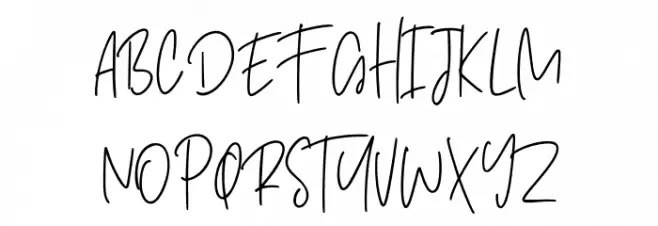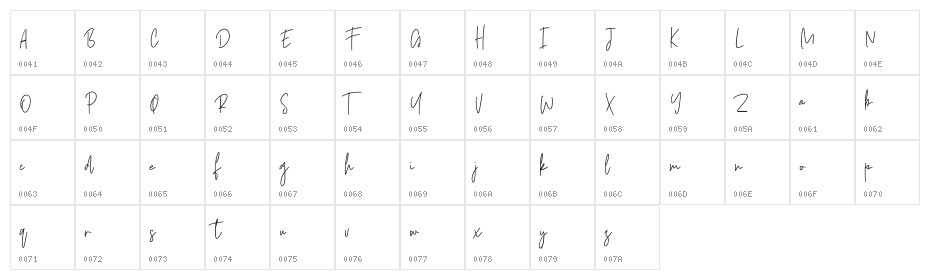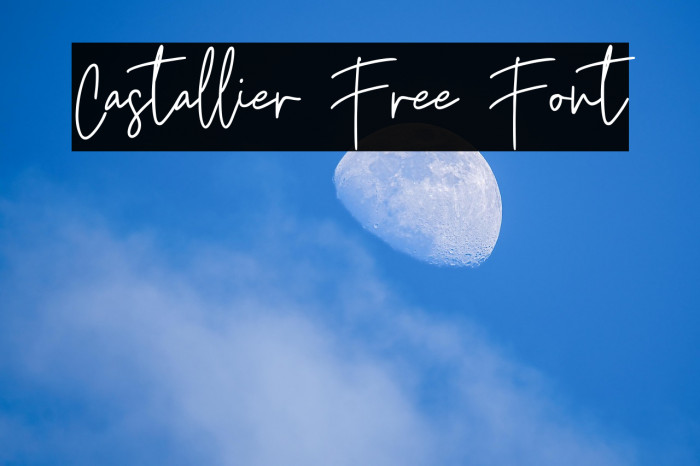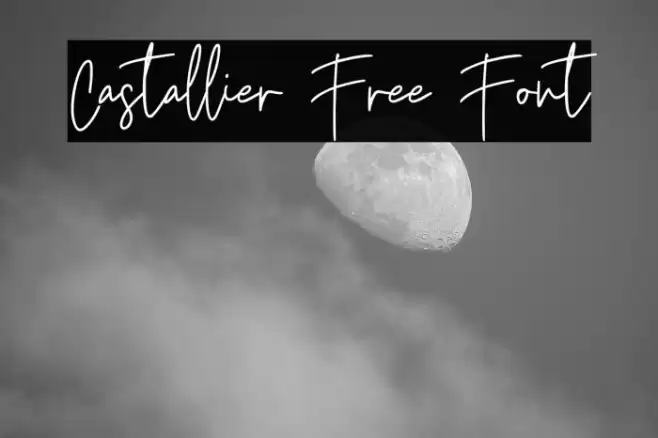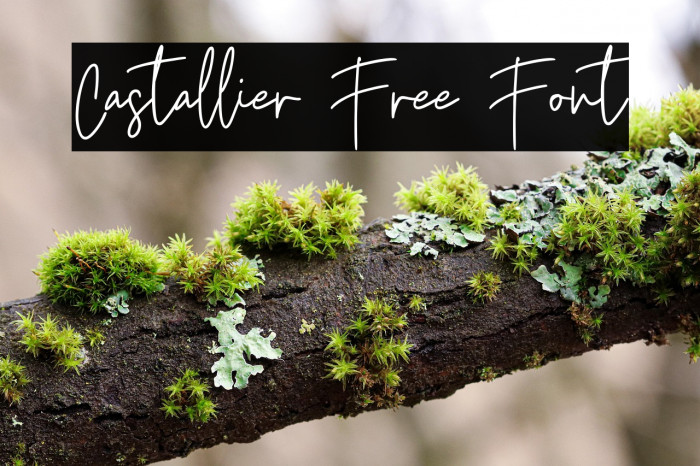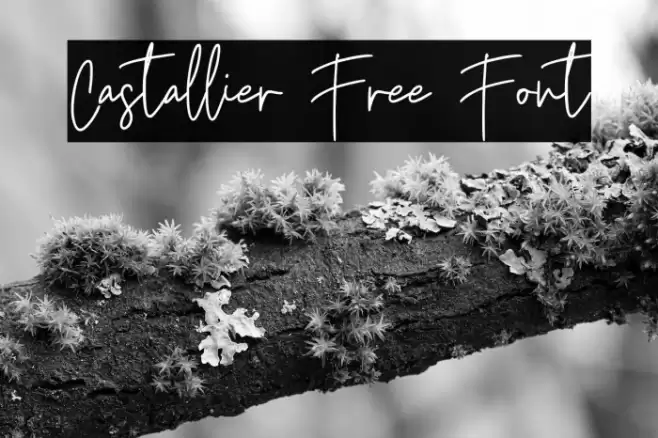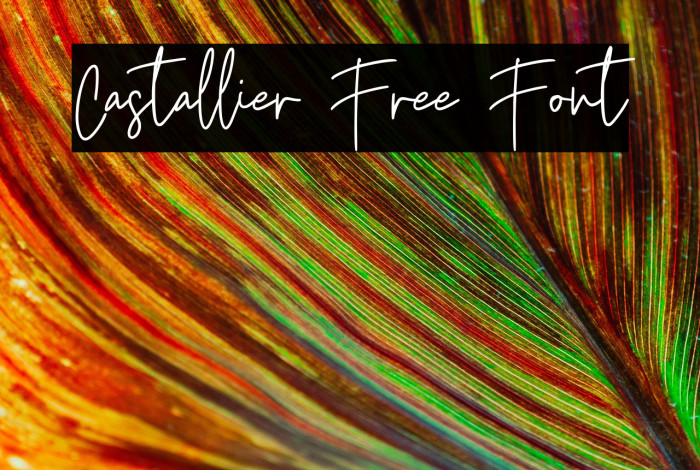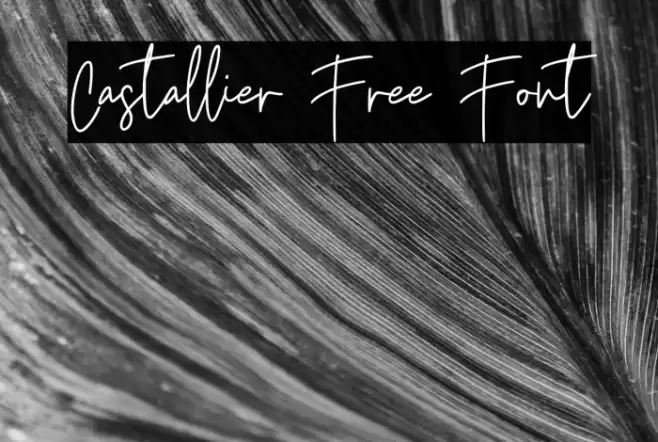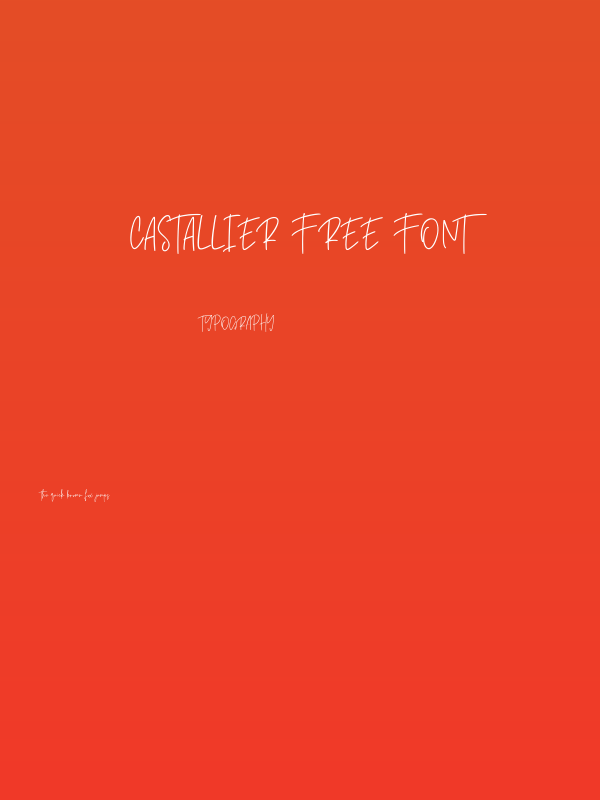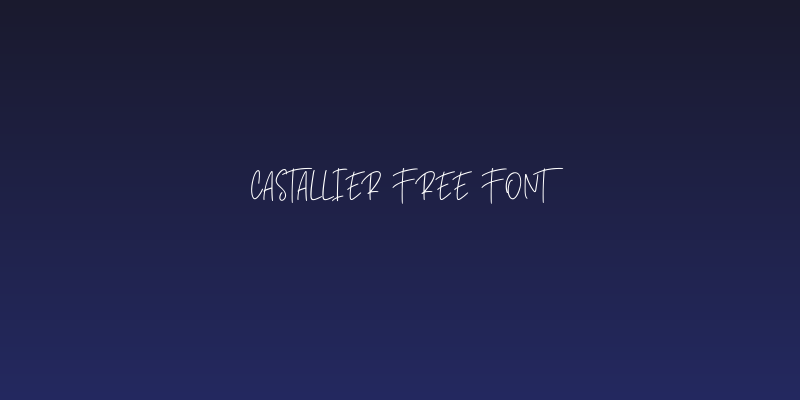
Castallier Free Font Font
Castallier Free Font Description
This font features a handwritten, cursive style with a modern and elegant touch. The letters are fluid and connected, giving a sense of motion and personality. The uppercase and lowercase characters maintain a consistent style, with a slight slant that adds to the casual yet sophisticated appearance. The strokes are thin and delicate, enhancing the font's airy and light feel. This font is perfect for projects that require a personal and artistic touch, such as invitations, greeting cards, or branding materials. The overall design is both stylish and approachable, making it versatile for various creative applications.
| Use Case | Headlines, Logos, Artistic projects |
| Proposed Projects | Ideal for invitations, greeting cards, branding, and artistic projects. |